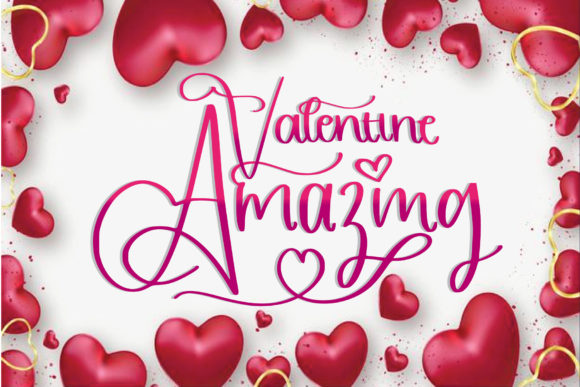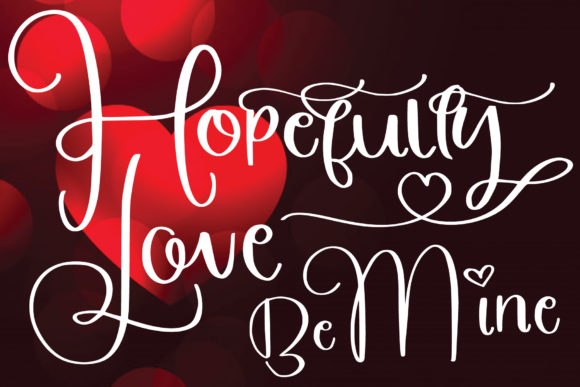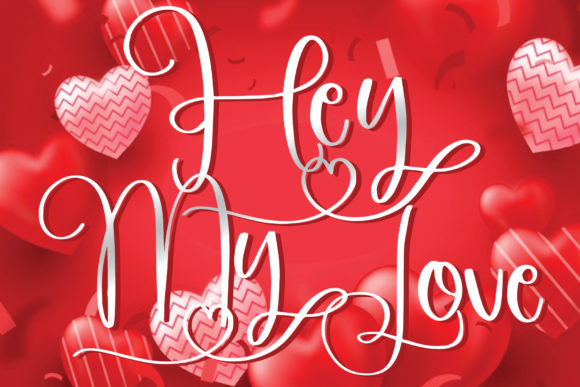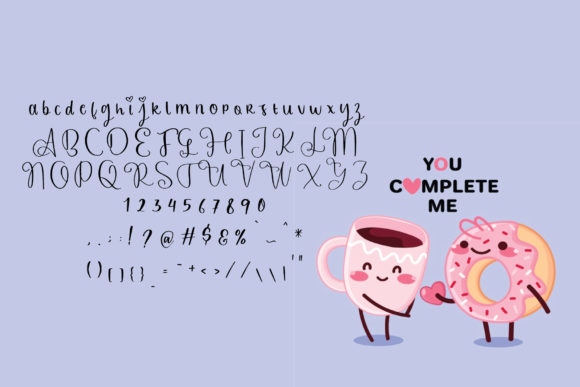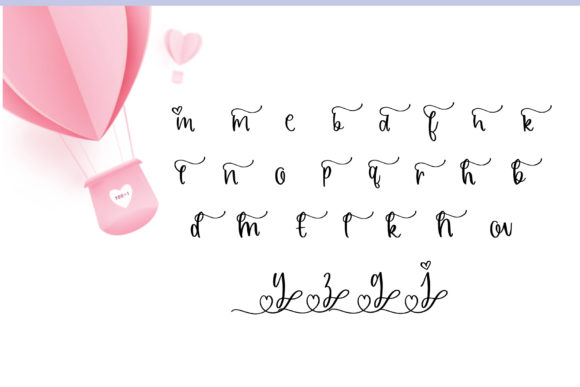
Amazing Valentine Font
Amazing Valentine is a stunning handwritten font that is perfect for adding a touch of charm and romance to your designs. Whether you’re creating Valentine’s Day cards, love letters, or any other project that requires a heartfelt and expressive font, Amazing Valentine will deliver beautiful results.
With its unique and intricate letterforms, Amazing Valentine captures the essence of love and warmth. The flowing strokes and delicate curves of each character create an elegant and captivating look that is sure to capture the attention of your audience. This font is designed to evoke emotions and create a memorable visual experience.
The PUA (Private Use Area) encoding of Amazing Valentine allows you to easily access all of the additional glyphs and swashes available in the font. This means you can customize and embellish your designs with ease, adding decorative elements and flourishes to make them truly special.
From romantic quotes and love notes to wedding invitations and greeting cards, Amazing Valentine is a versatile font that can be used in a variety of design projects. Its timeless and classic style makes it suitable for both digital and print applications, ensuring that your creations will look beautiful across different mediums.
Whether you’re a professional designer or someone who enjoys DIY projects, Amazing Valentine is a valuable asset in your font collection. Its ability to convey love and emotion through its elegant letterforms makes it an ideal choice for any project that aims to celebrate love and special occasions.
In summary, Amazing Valentine is a superb handwritten font that brings beauty and romance to your designs. Its PUA encoding allows easy access to additional glyphs and swashes, giving you the freedom to customize your designs. Use Amazing Valentine to create beautiful Valentine’s Day designs and express your heartfelt messages in a visually captivating way.